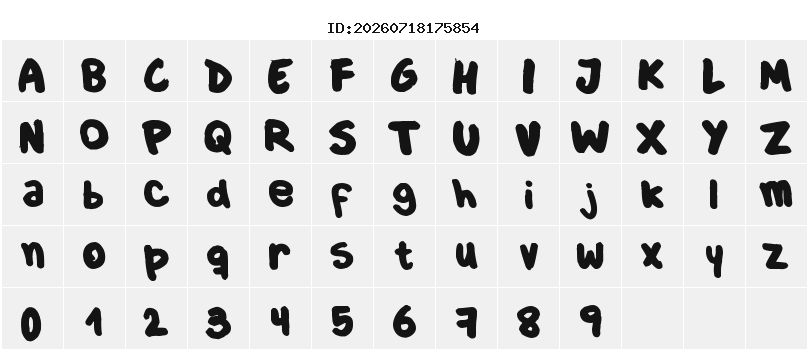
• Font Name: Culia / ANTIPIXEL.COM.AR
• Full Font Name: Culia / ANTIPIXEL.COM.AR
• Version: Version 1.00 March 26, 2008, initial release
About Culia / ANTIPIXEL.COM.AR.ttf
Culia / ANTIPIXEL.COM.AR.ttf is a modern, elegant sans-serif font designed for ultimate readability and visual harmony. Perfect for branding, headlines, web design, and print materials.